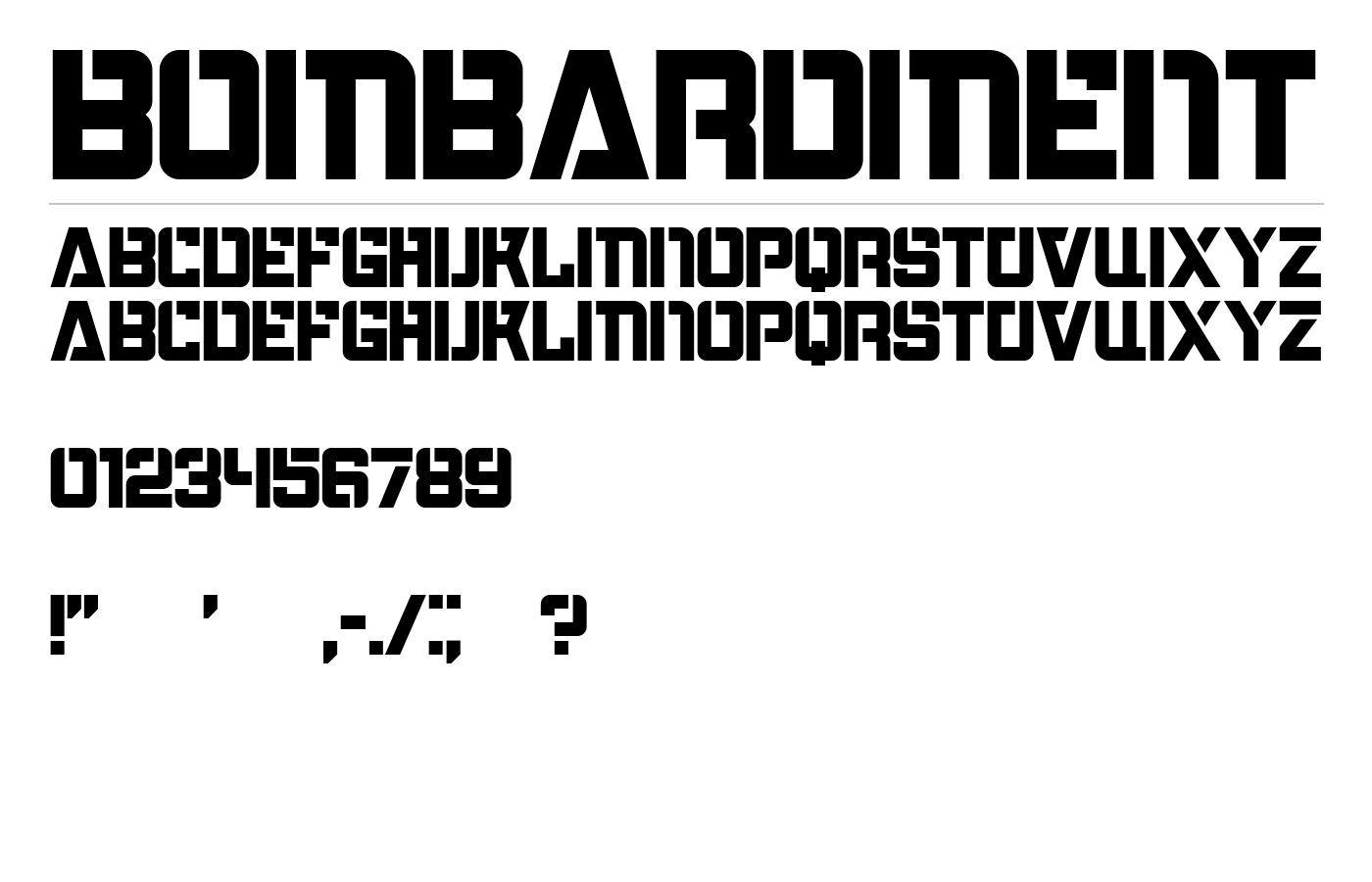
Bombardment is a bold, modern sans serif font with a strong, industrial feel. Its geometric shapes, high stroke contrast, and tight spacing create a striking, futuristic appearance perfect for impactful headlines, logos, and branding that demands attention. This font works best in designs aiming for a powerful, dynamic look with a sense of technological edge.
Bombardment Font
About Bombardment Font